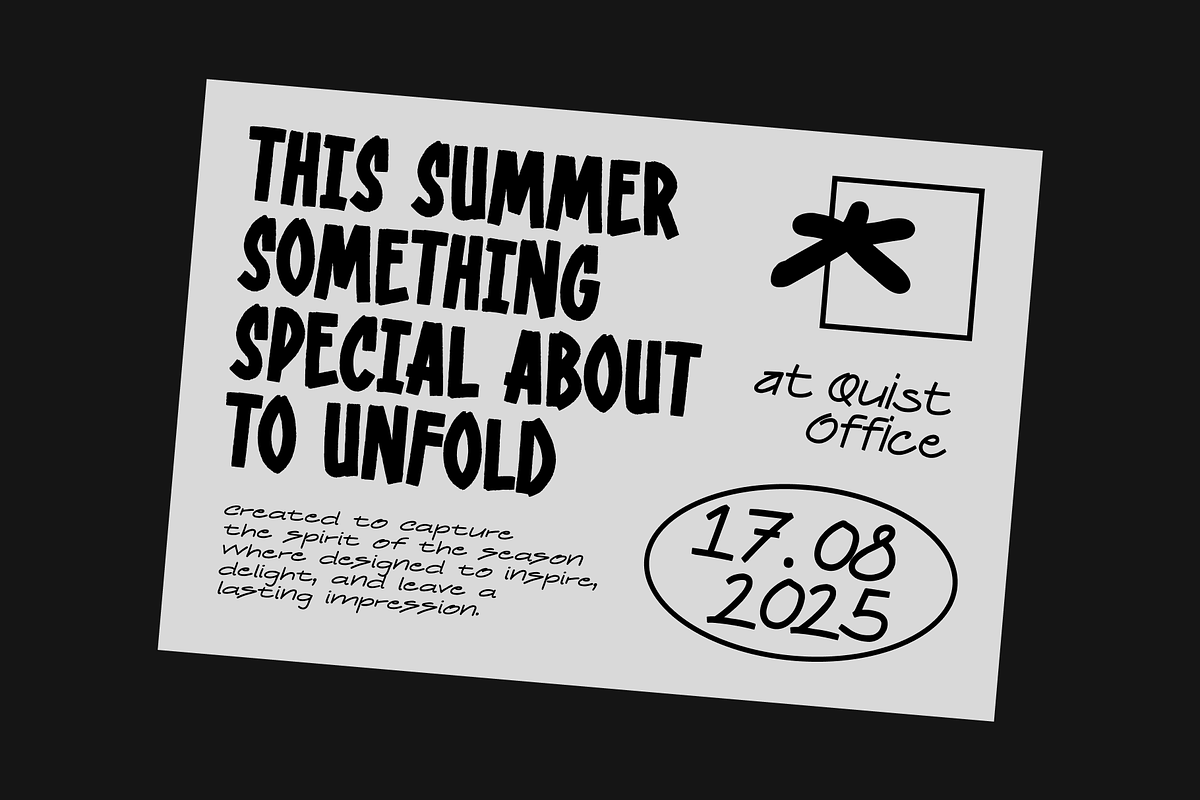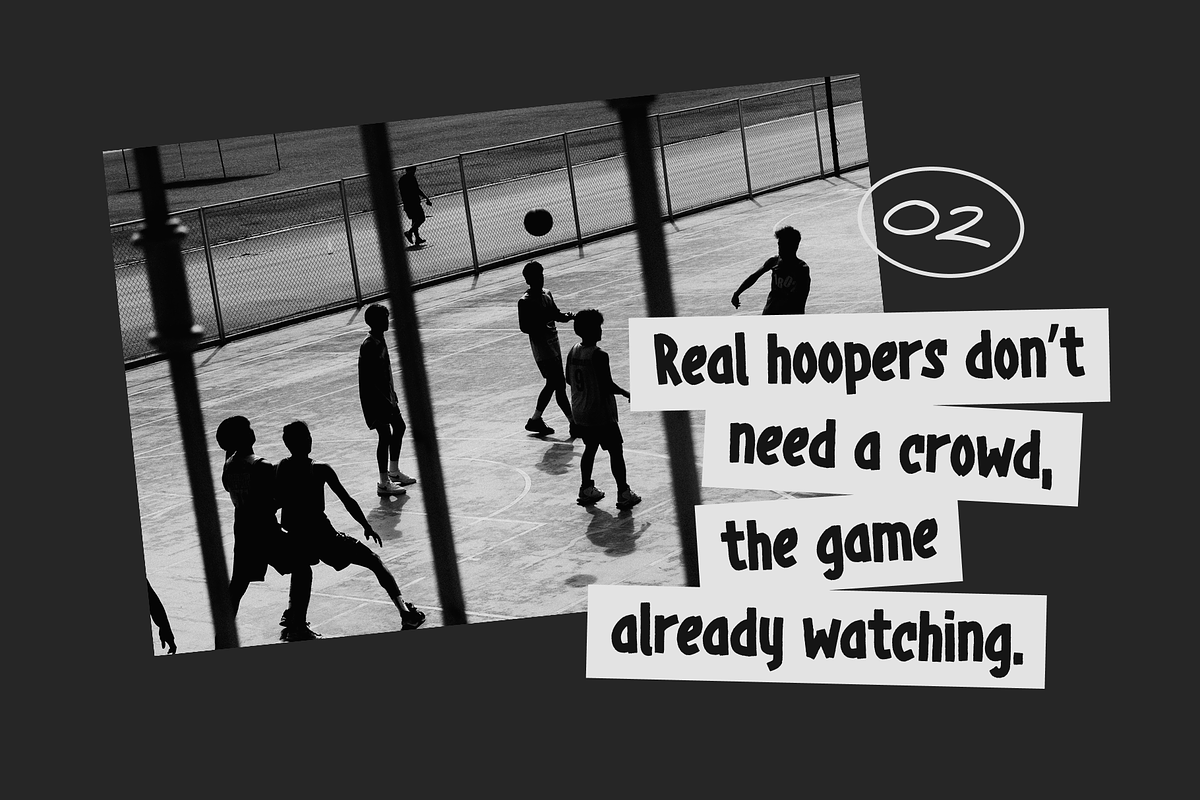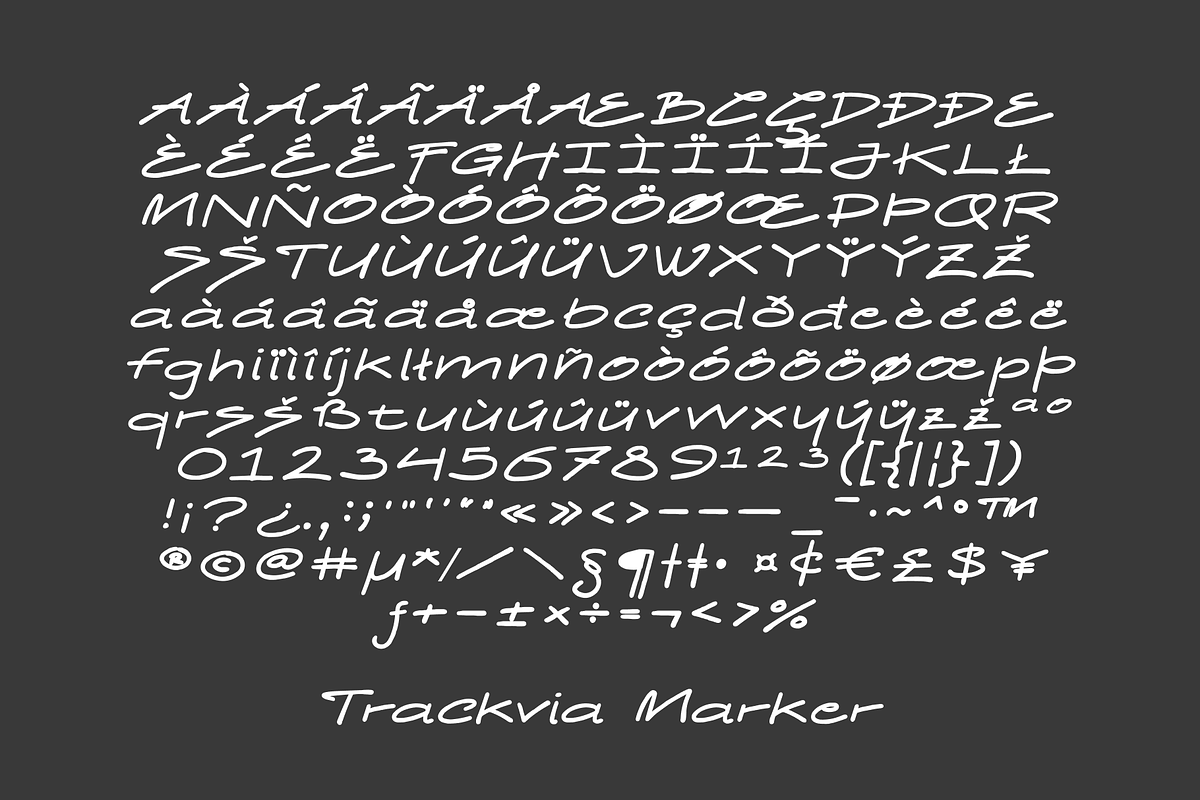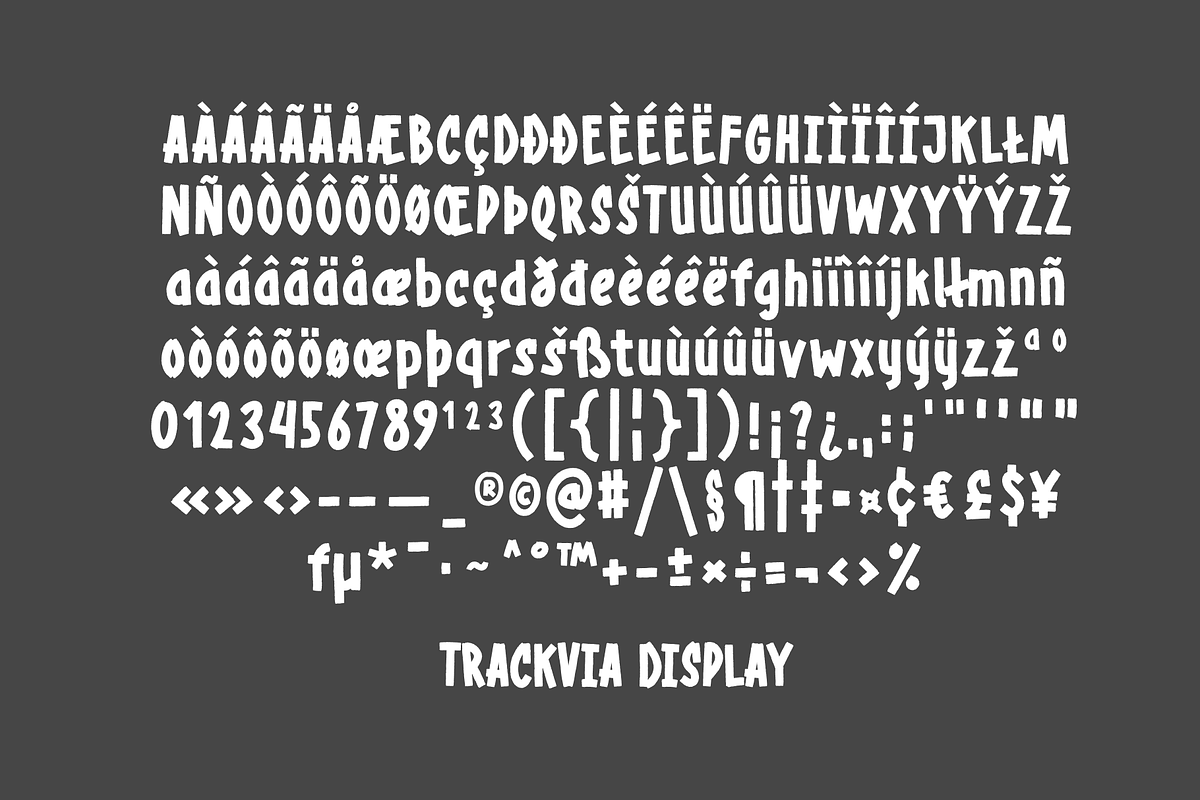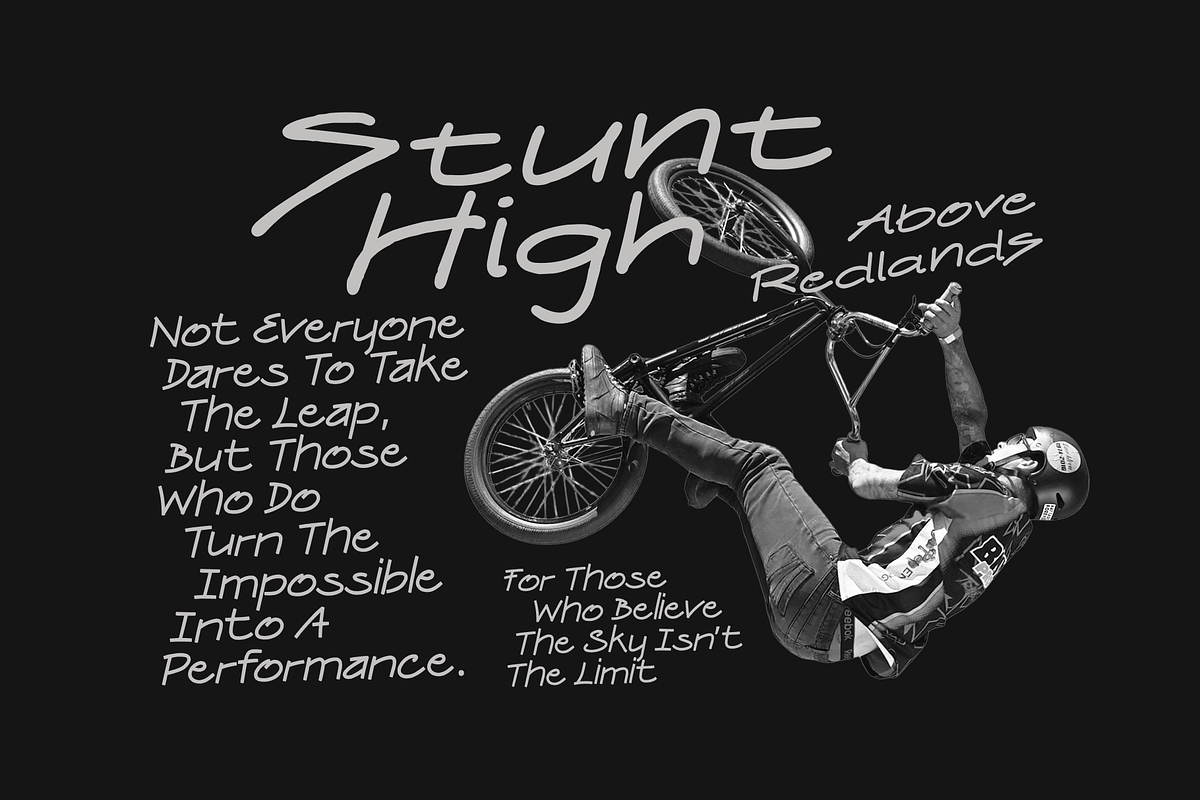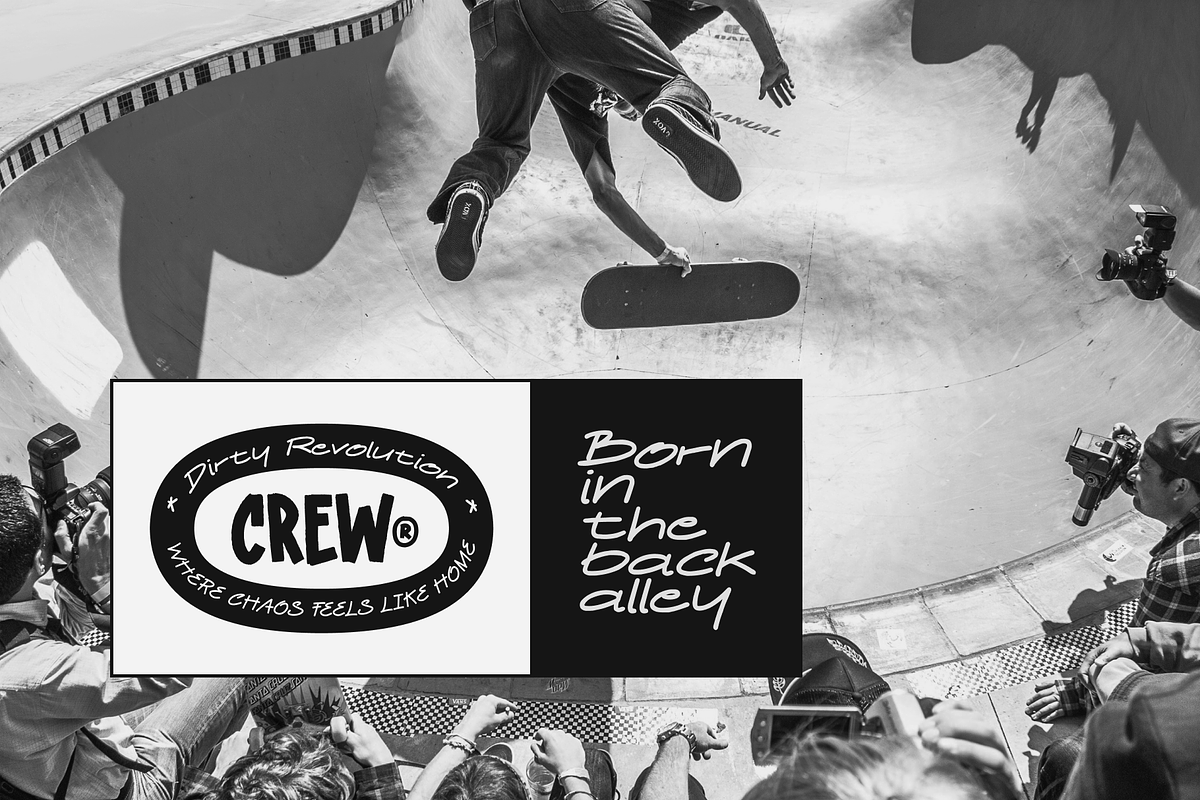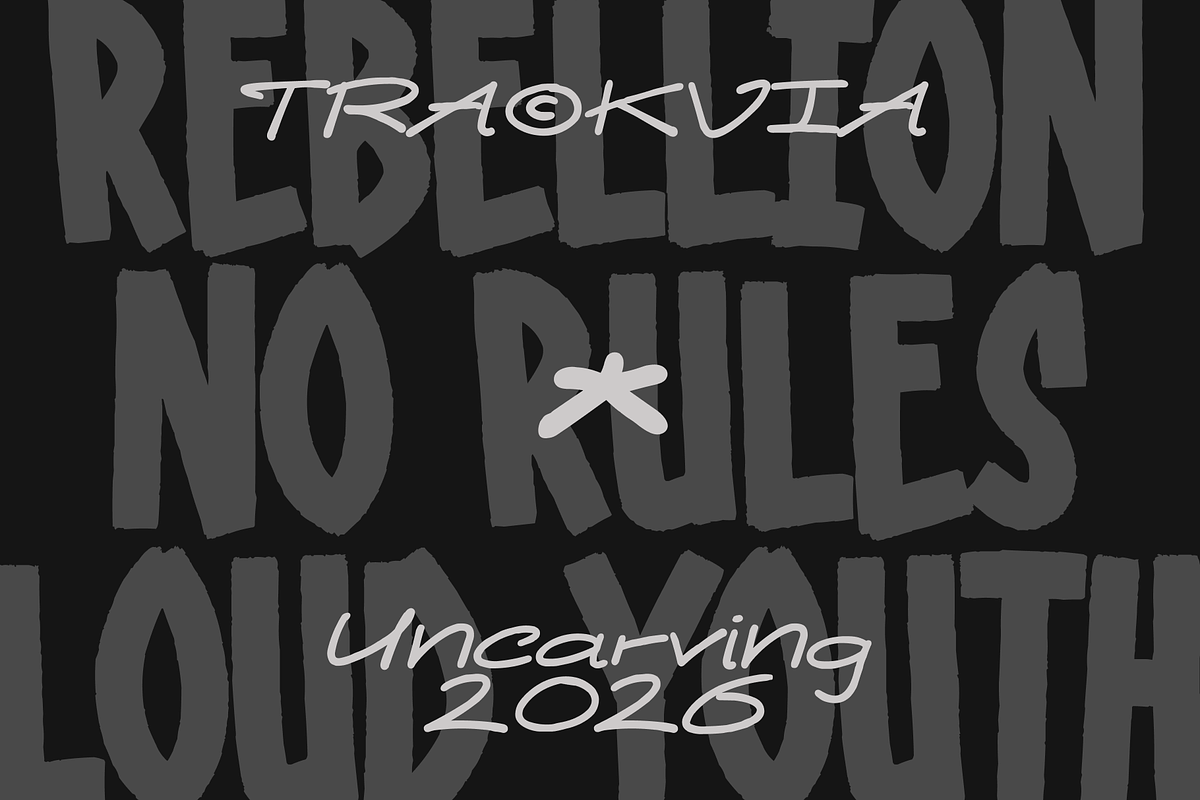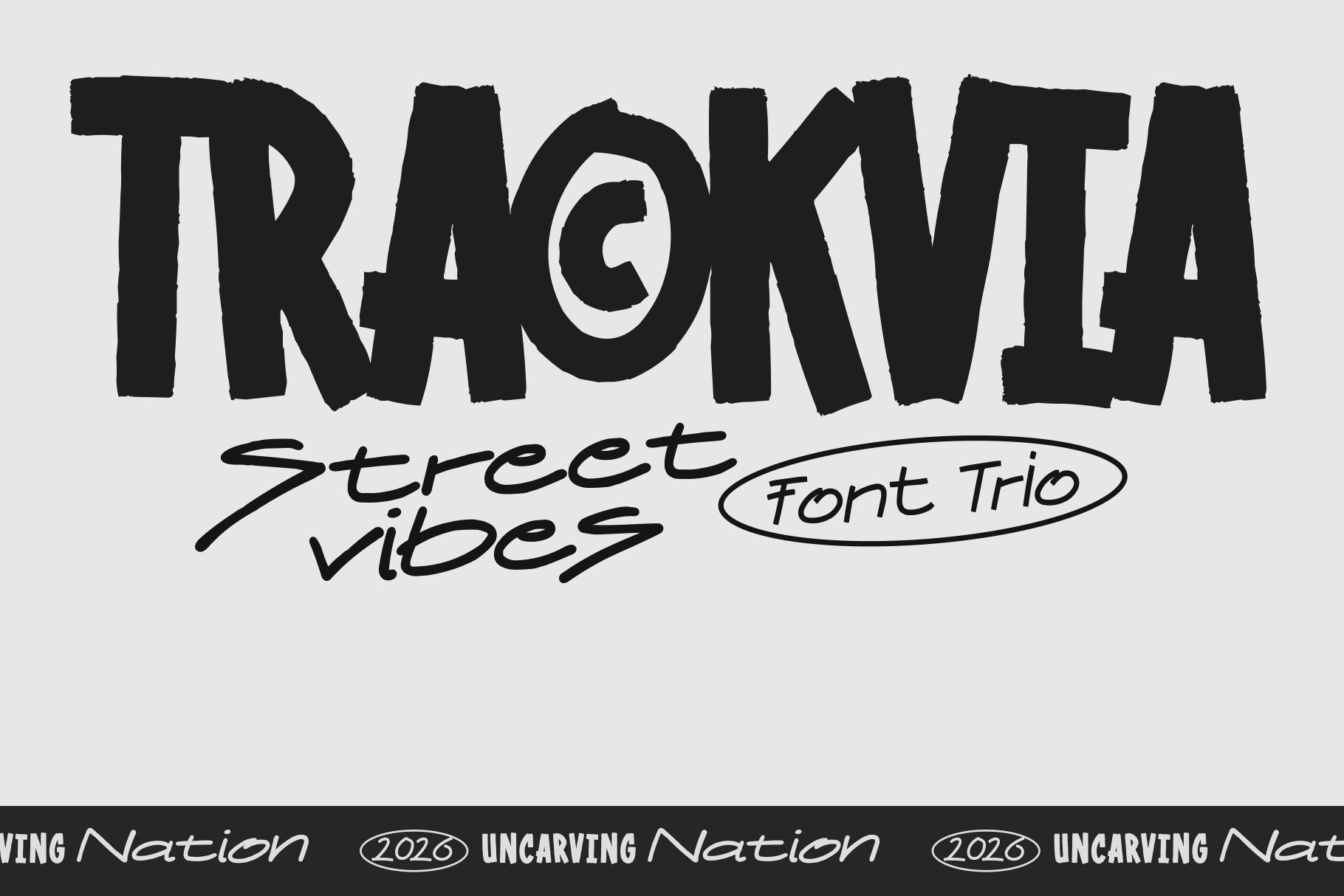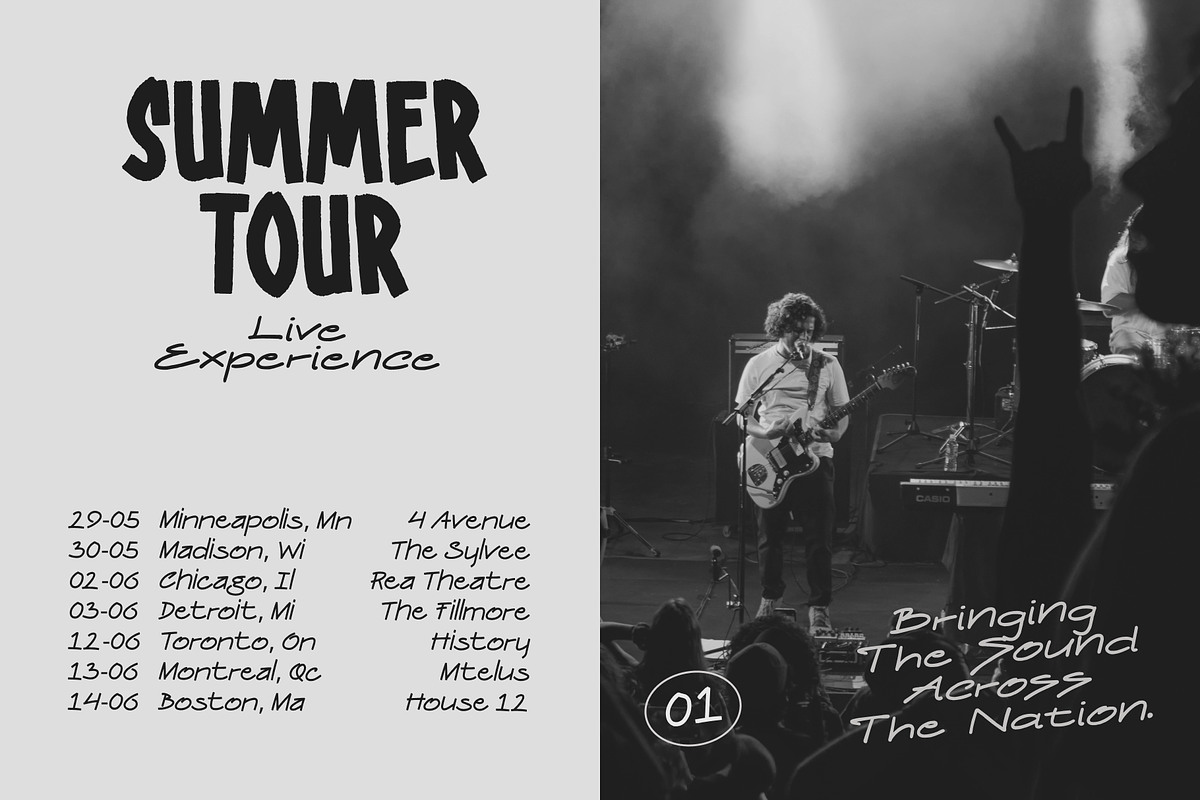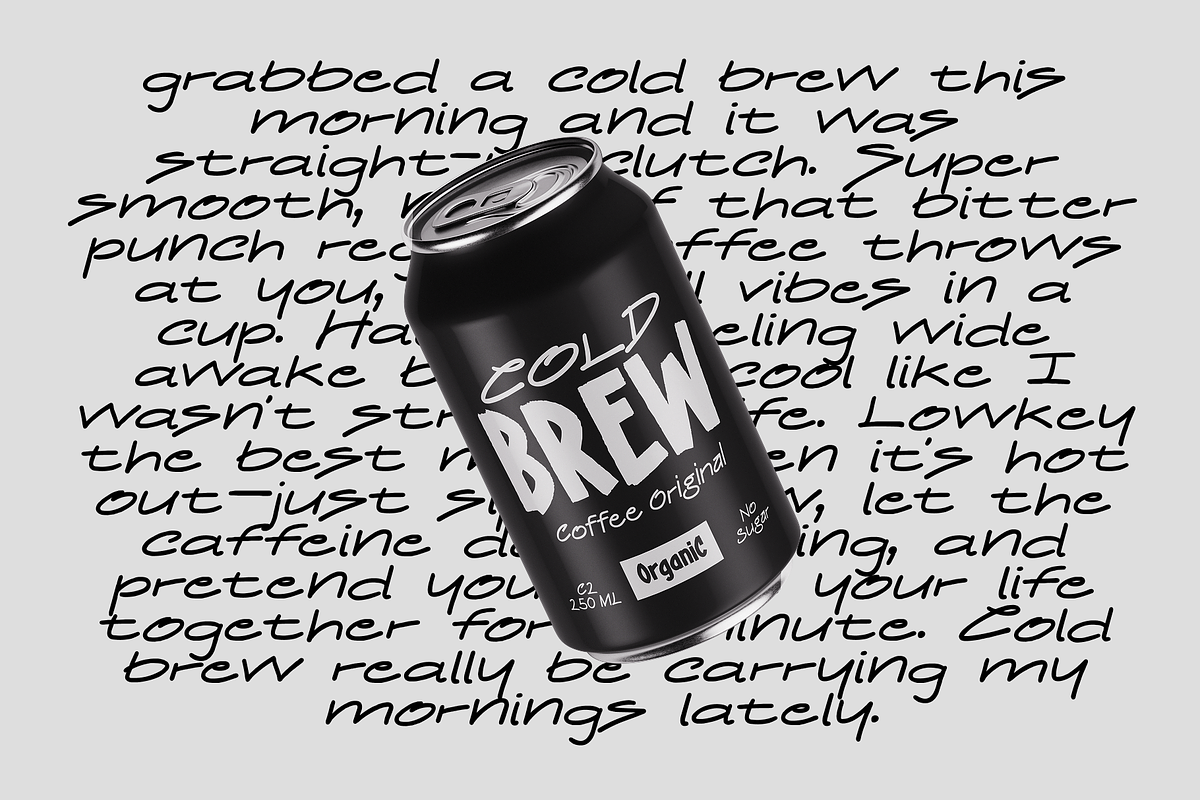
Trackvia - Street Vibes Font
Trackvia Font Trio – Street Vibes with No Rules
Meet Trackvia, a bold and expressive font trio built for creators who want raw energy, urban attitude, and unapologetic style. Inspired by street culture, skate aesthetics, and rebellious typography, Trackvia brings a handcrafted, imperfect edge that makes every design feel alive.
This trio gives you the perfect mix of structure, flow, and personality:
Trackvia Display – A bold, chunky headline font with a rough, hand-painted feel. Perfect for posters, branding, and statement titles. Trackvia Marker – A fast, expressive handwritten script that adds movement and authenticity. Trackvia Sub – A supporting style that balances the set, ideal for layering, accents, and secondary text.
Designed for eye-catching headlines and street-style branding Perfect for posters, apparel, logos, social media, and packaging Mix & match styles for dynamic, layered typography Authentic handmade feel with a modern urban twist
🎯 Perfect For: Streetwear brands, skate culture designs, music covers, event posters, YouTube thumbnails, bold branding projects, and anything that needs attitude.